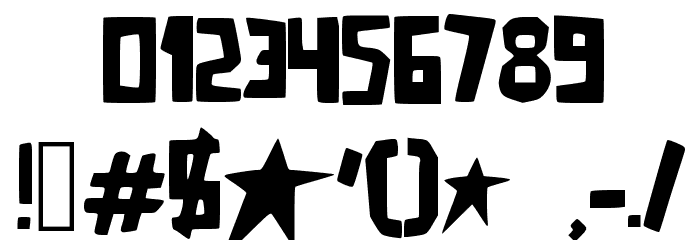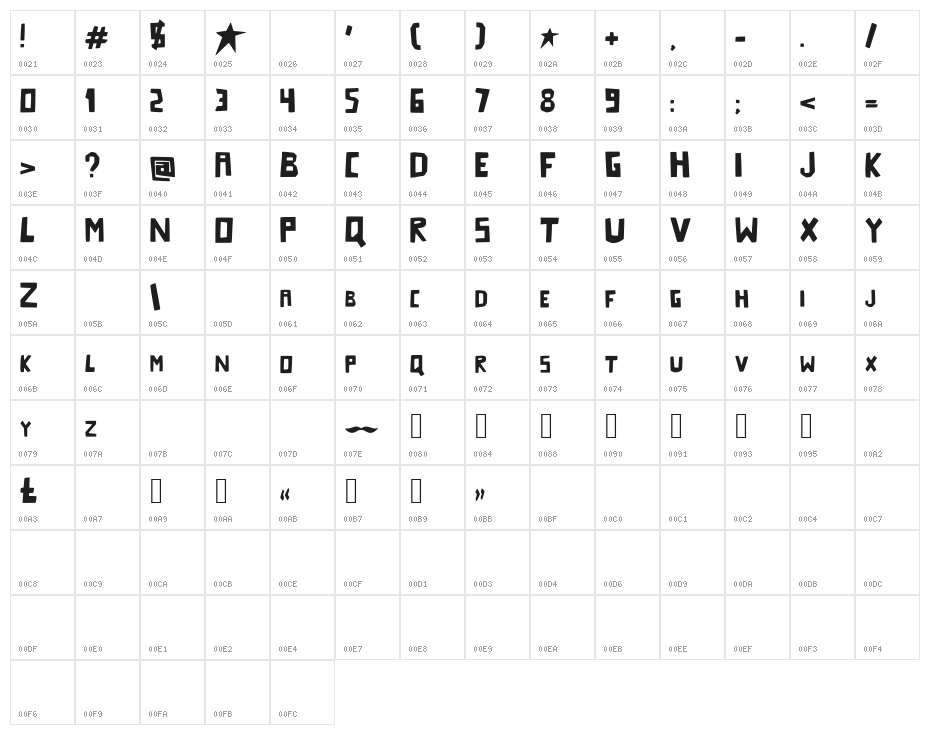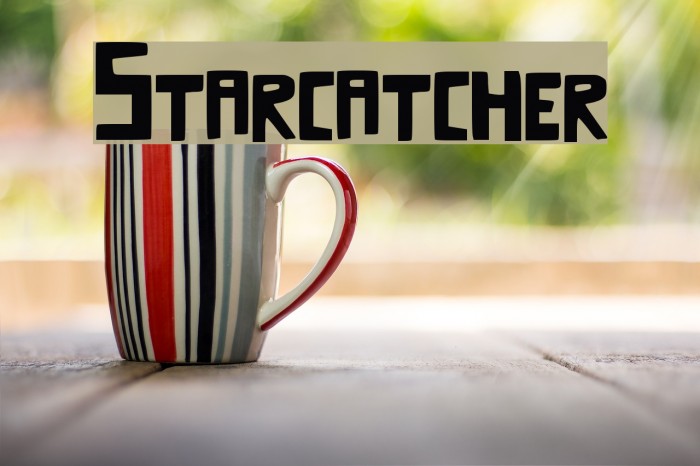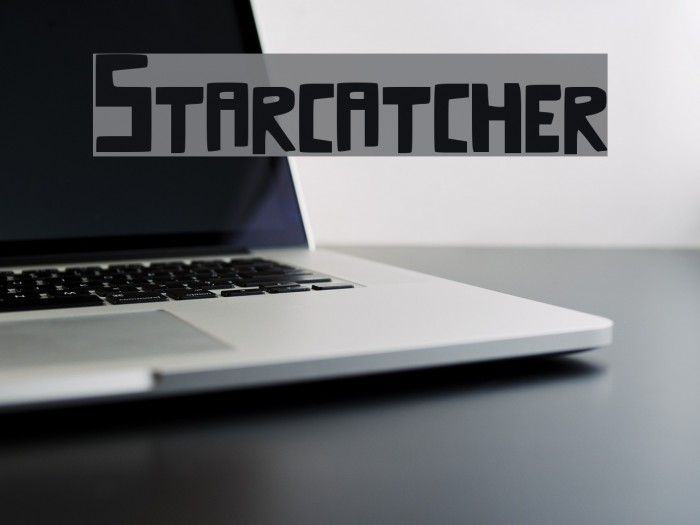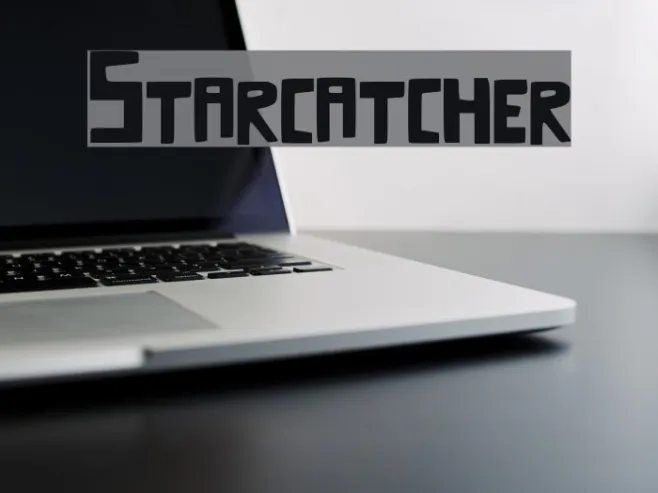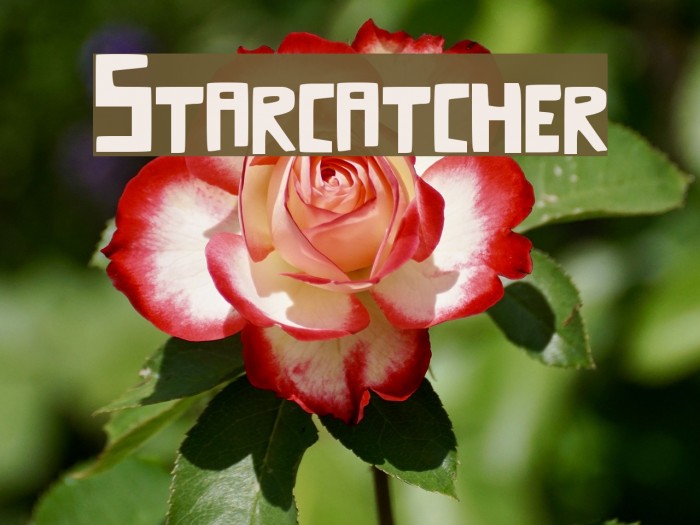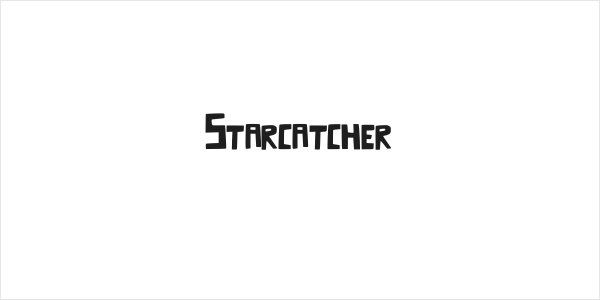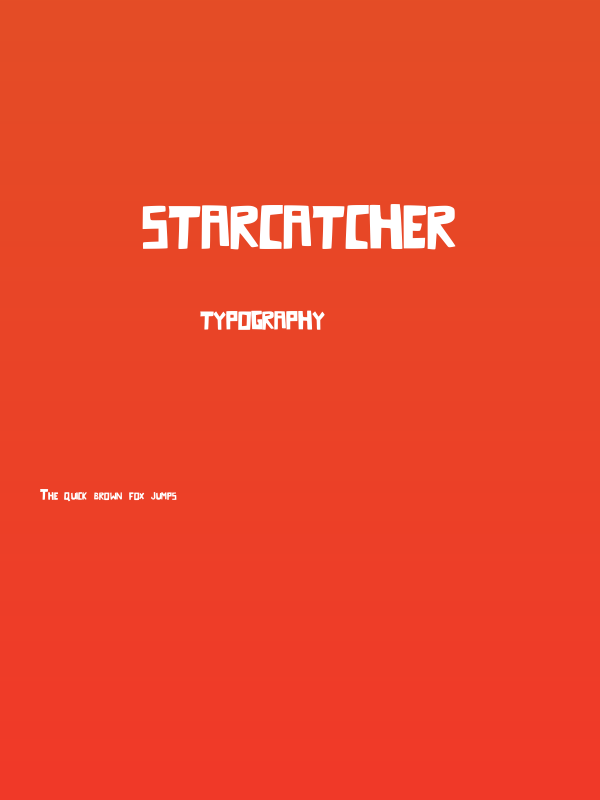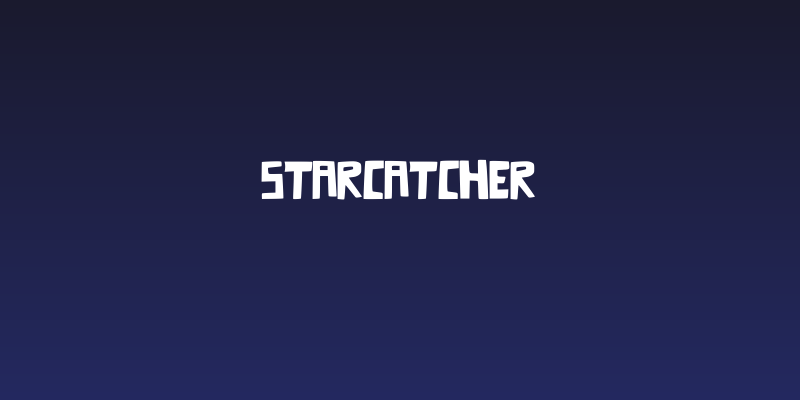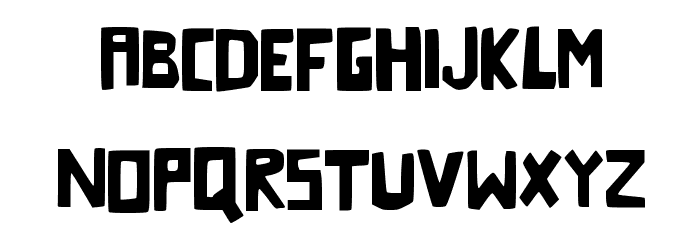
Starcatcher Font
Starcatcher Description
This font features a bold and playful design with a distinct geometric style. The characters are blocky and angular, giving them a strong presence on the page. The uppercase and lowercase letters maintain a consistent width, creating a uniform appearance. The numbers and special characters follow the same bold and angular design, ensuring cohesion across all elements. This font's unique style makes it stand out, with each character having its own personality while still fitting into the overall design. The sharp edges and bold lines make it suitable for eye-catching designs.